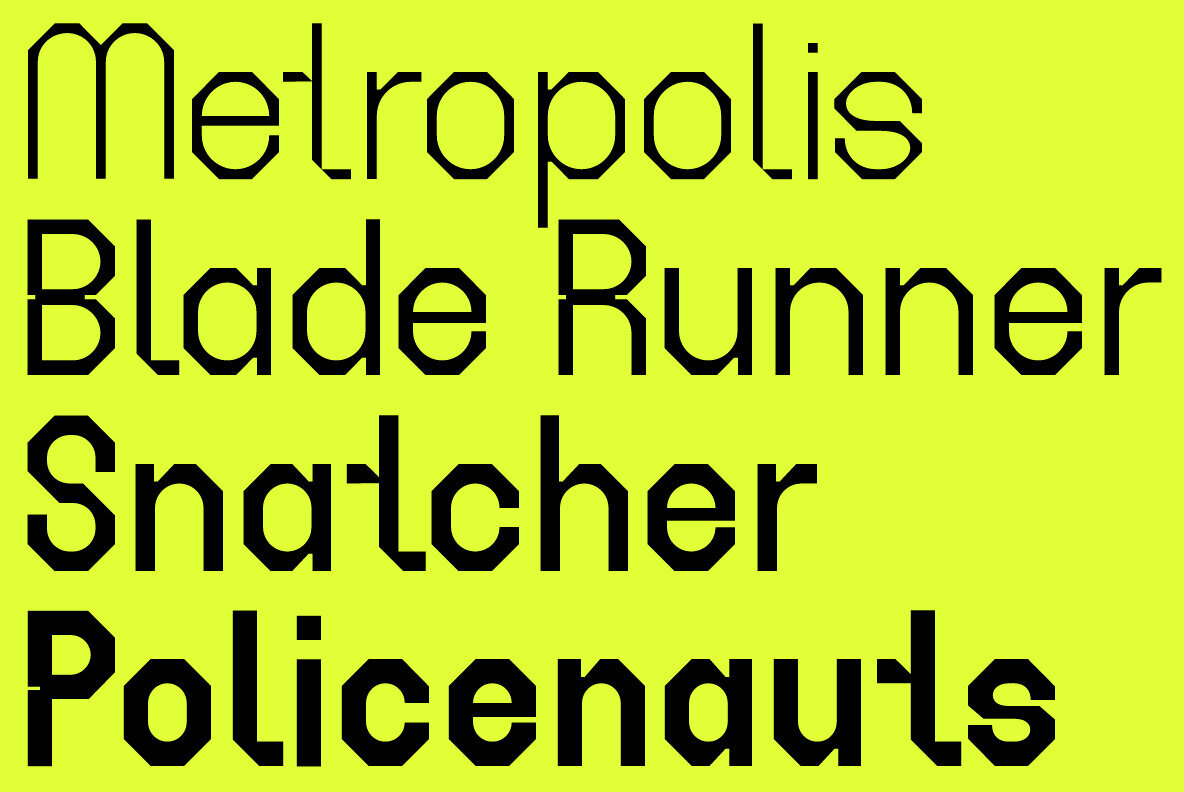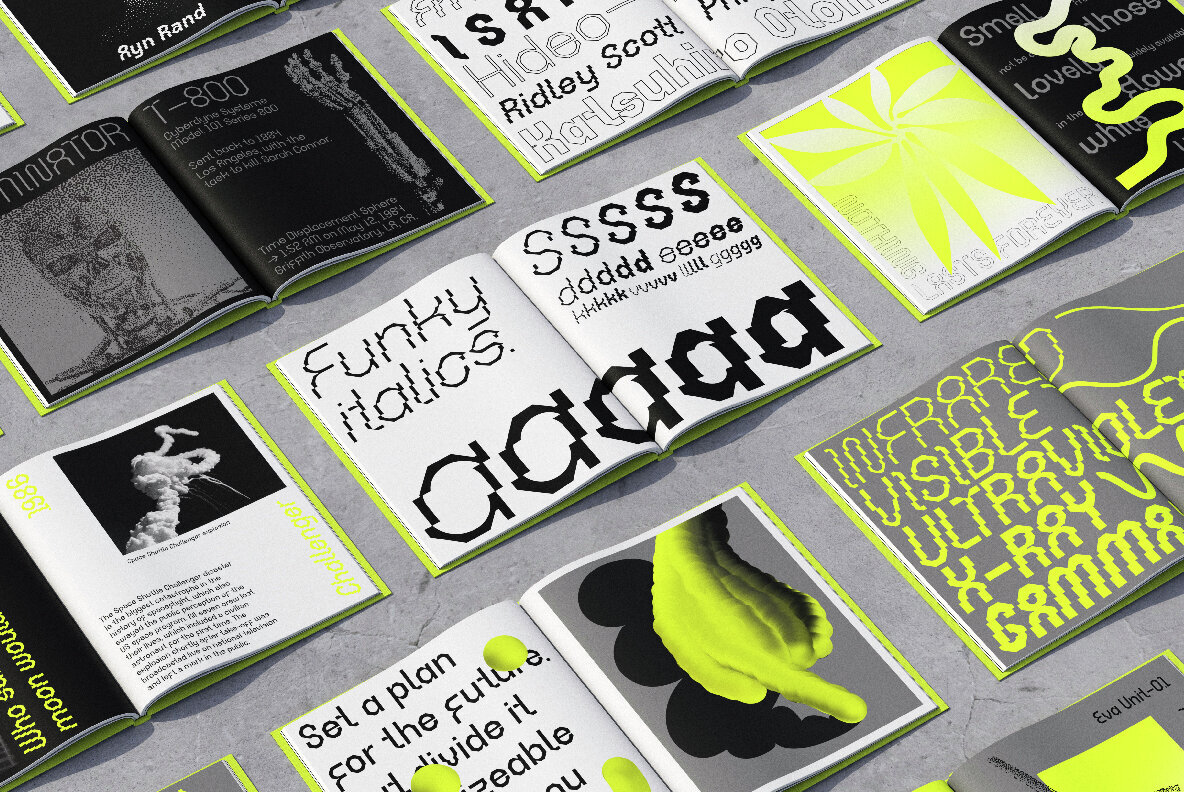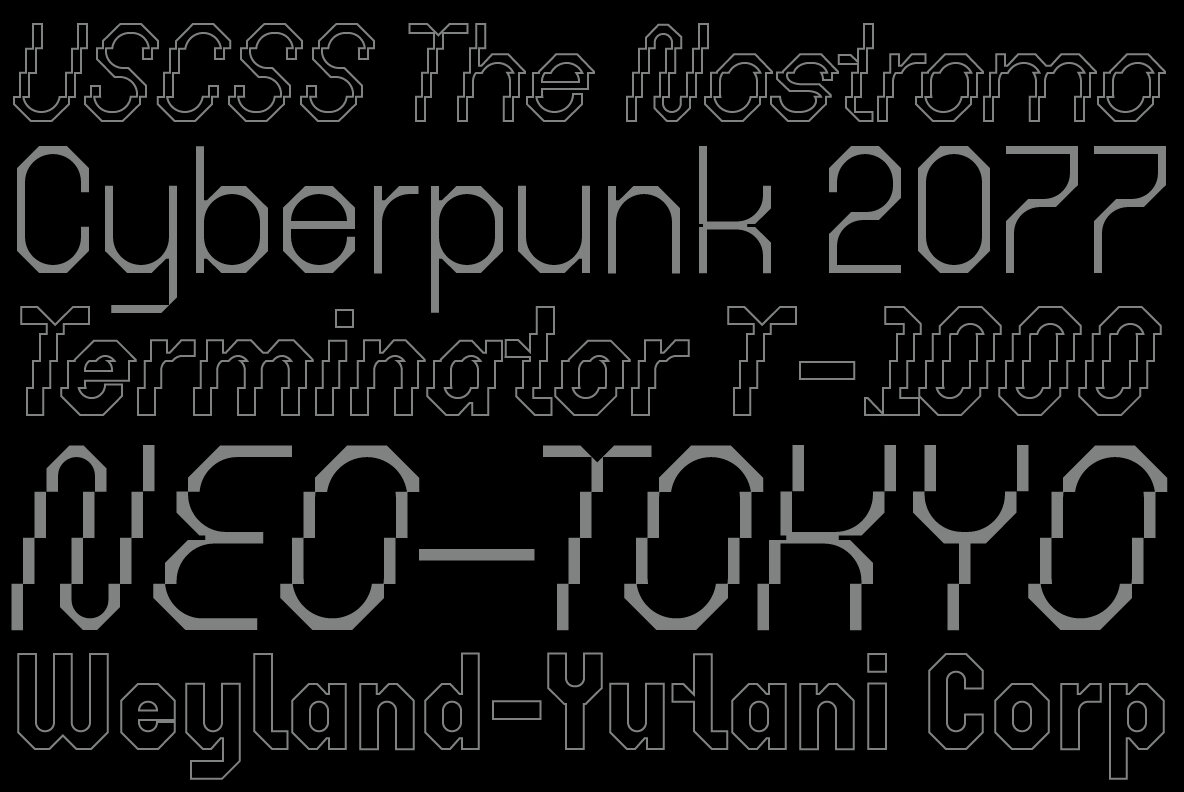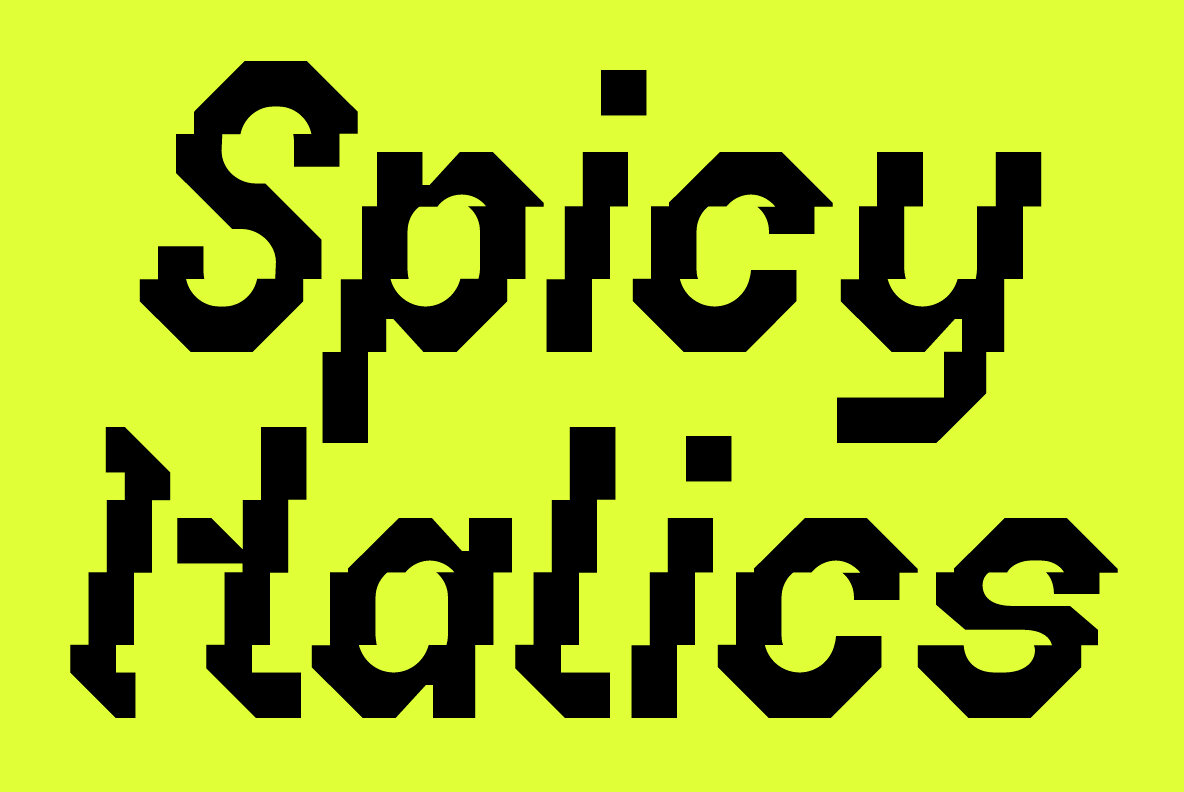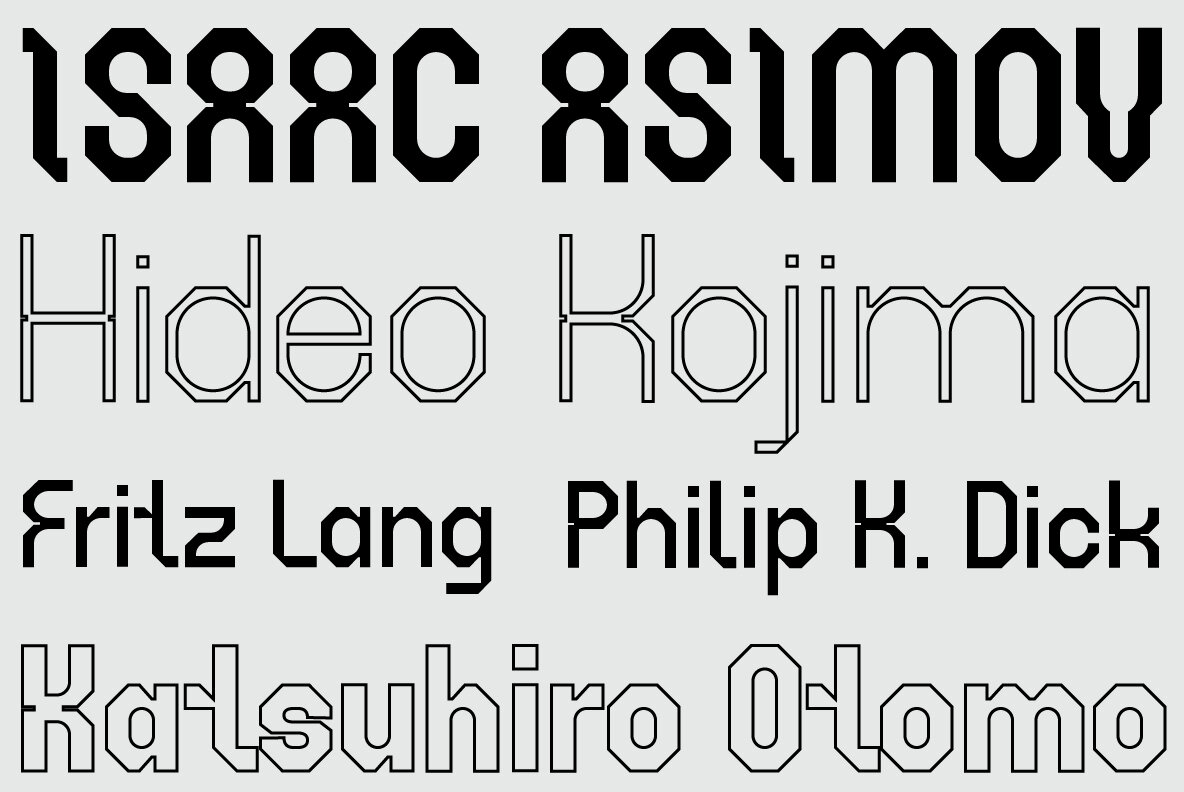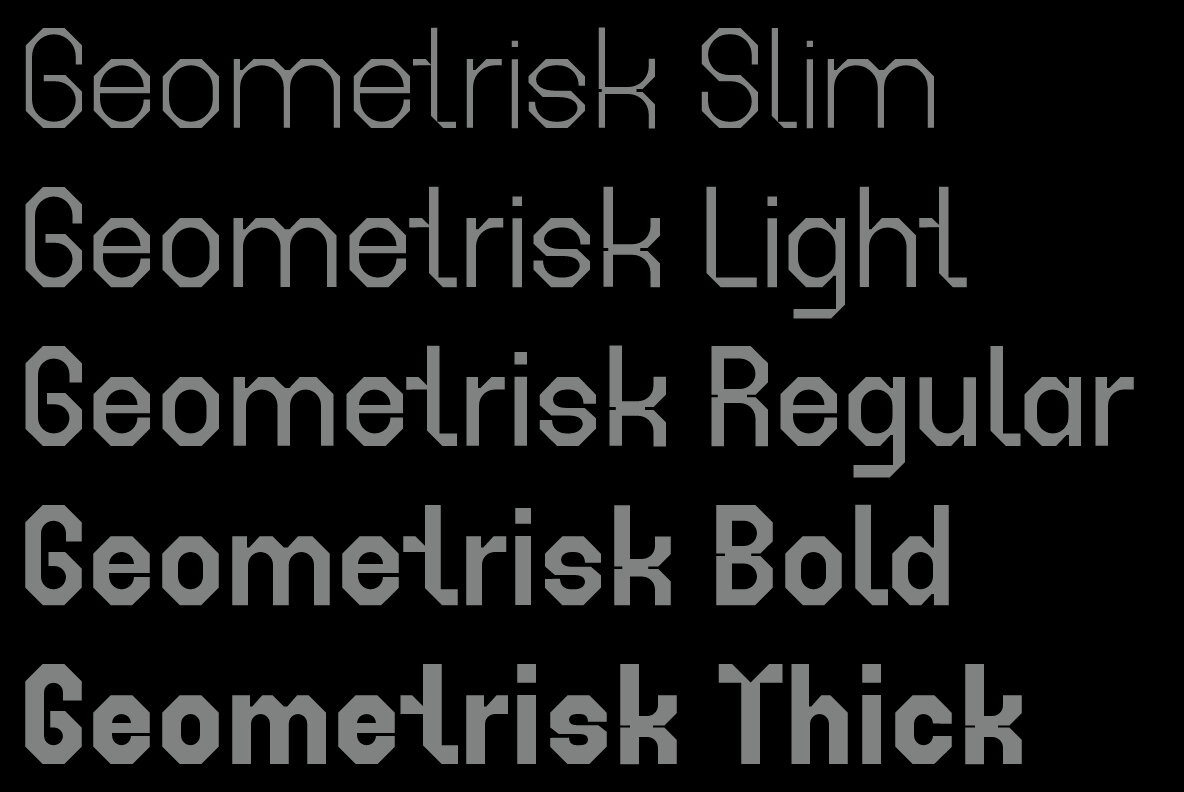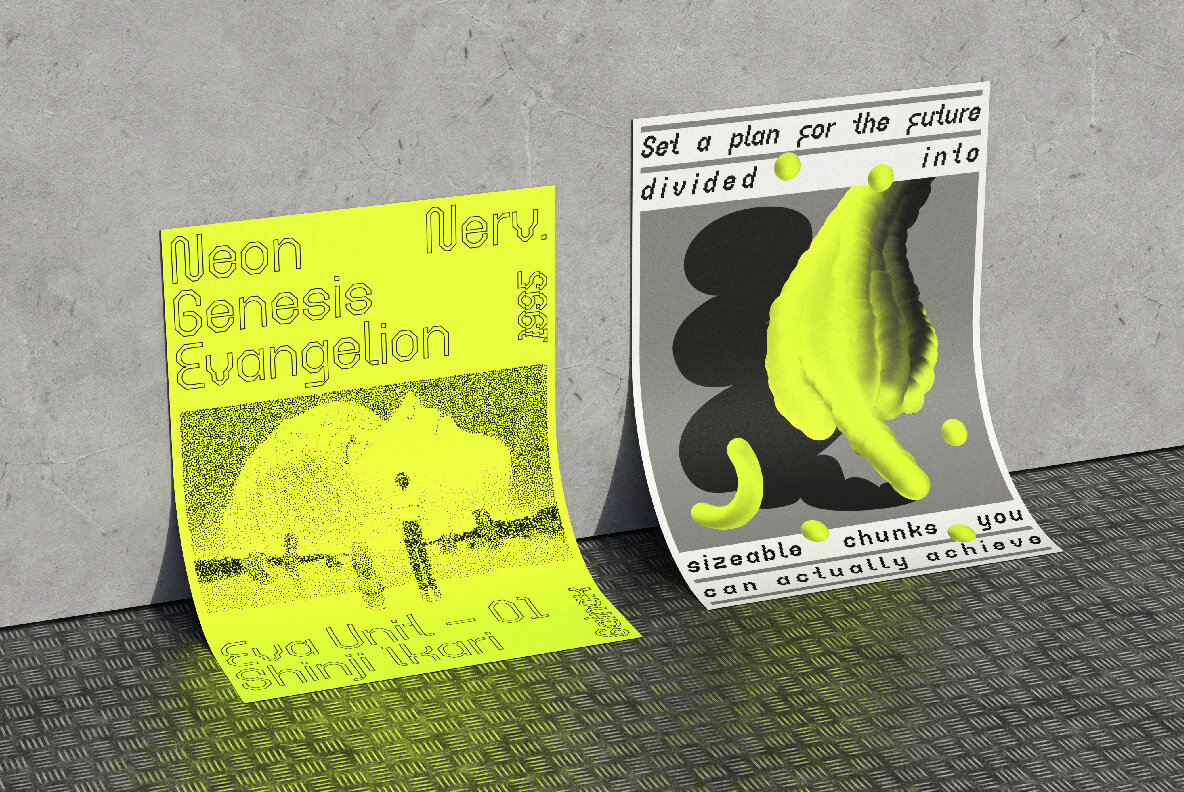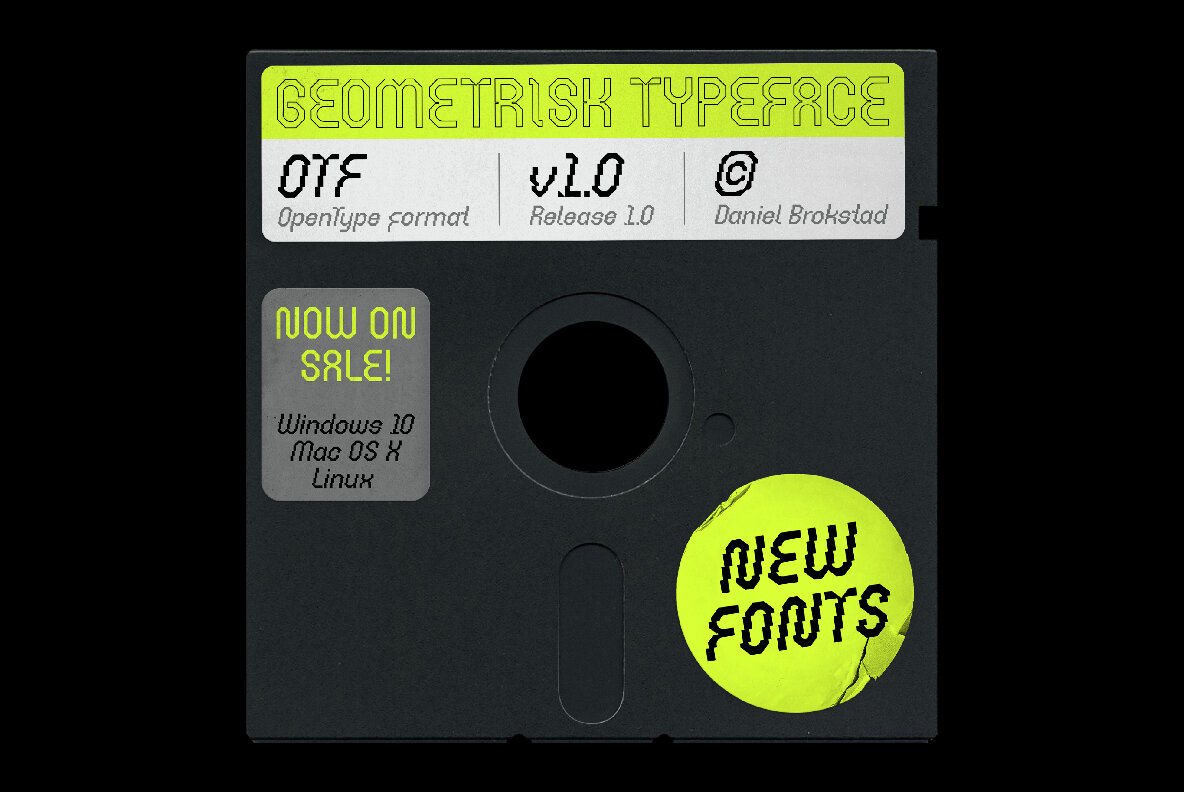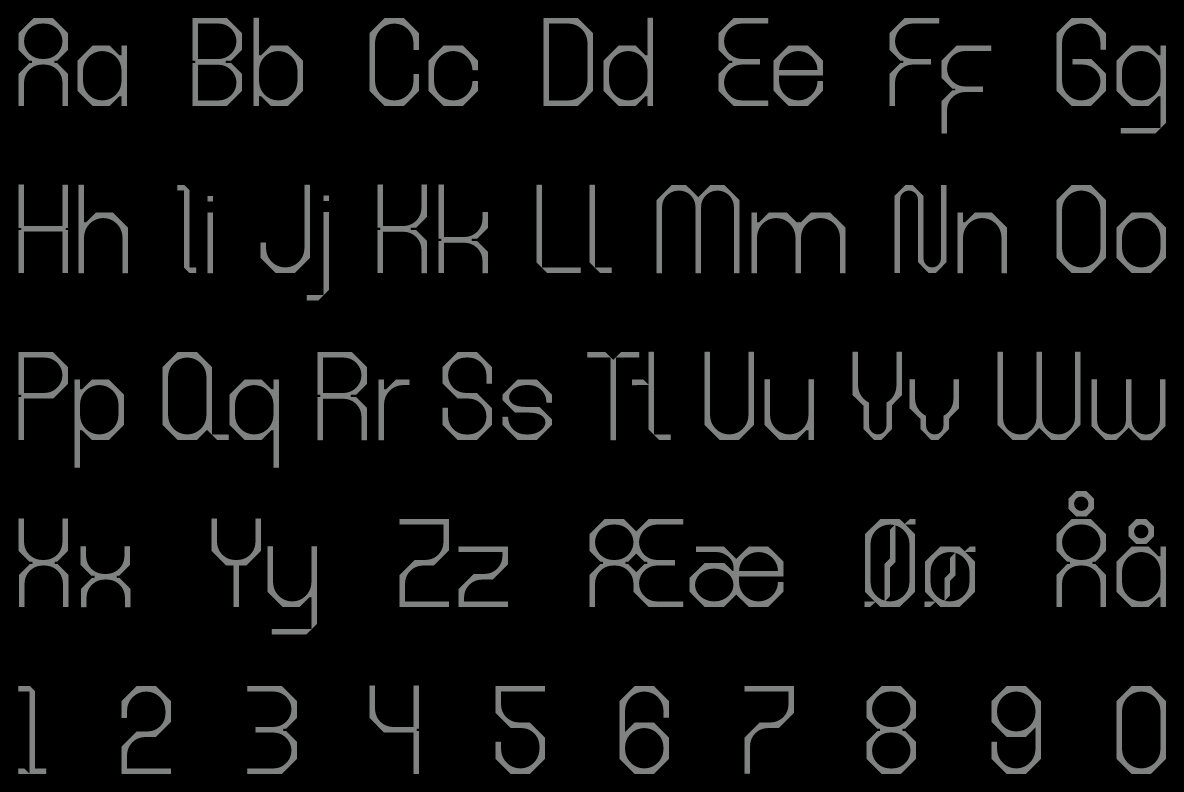
Geometrisk Font
Geometrisk is a modernist futuristic font combining geometrical outer shapes with rounded inner curves, to create an interesting contrast. The funky italics are created through an offset of the regular type, giving it an almost pixelated look. Well fitting within a cyberpunk world, and an interesting pairing with the upright weights. Five different weight and italics of each. Multi-language support. Stylistic alternatives. Designed for headline use.